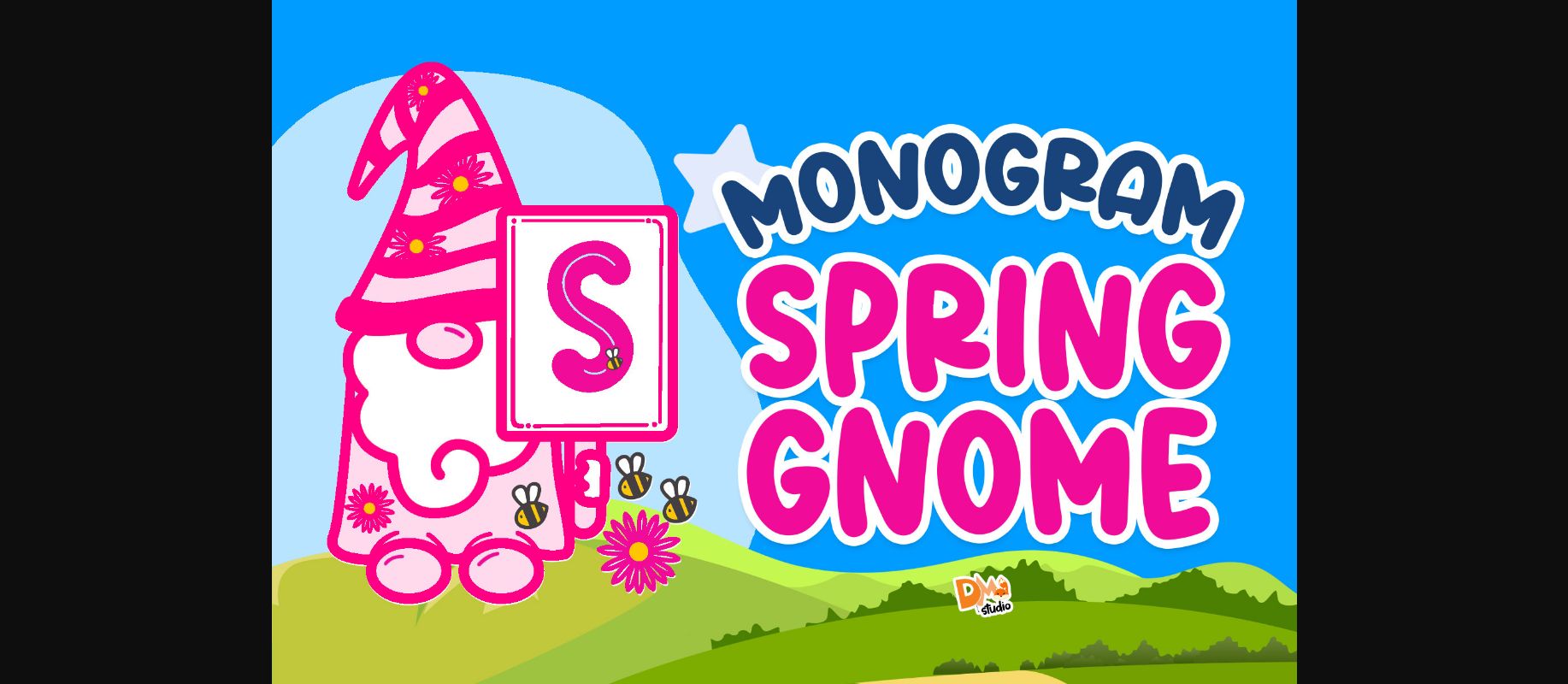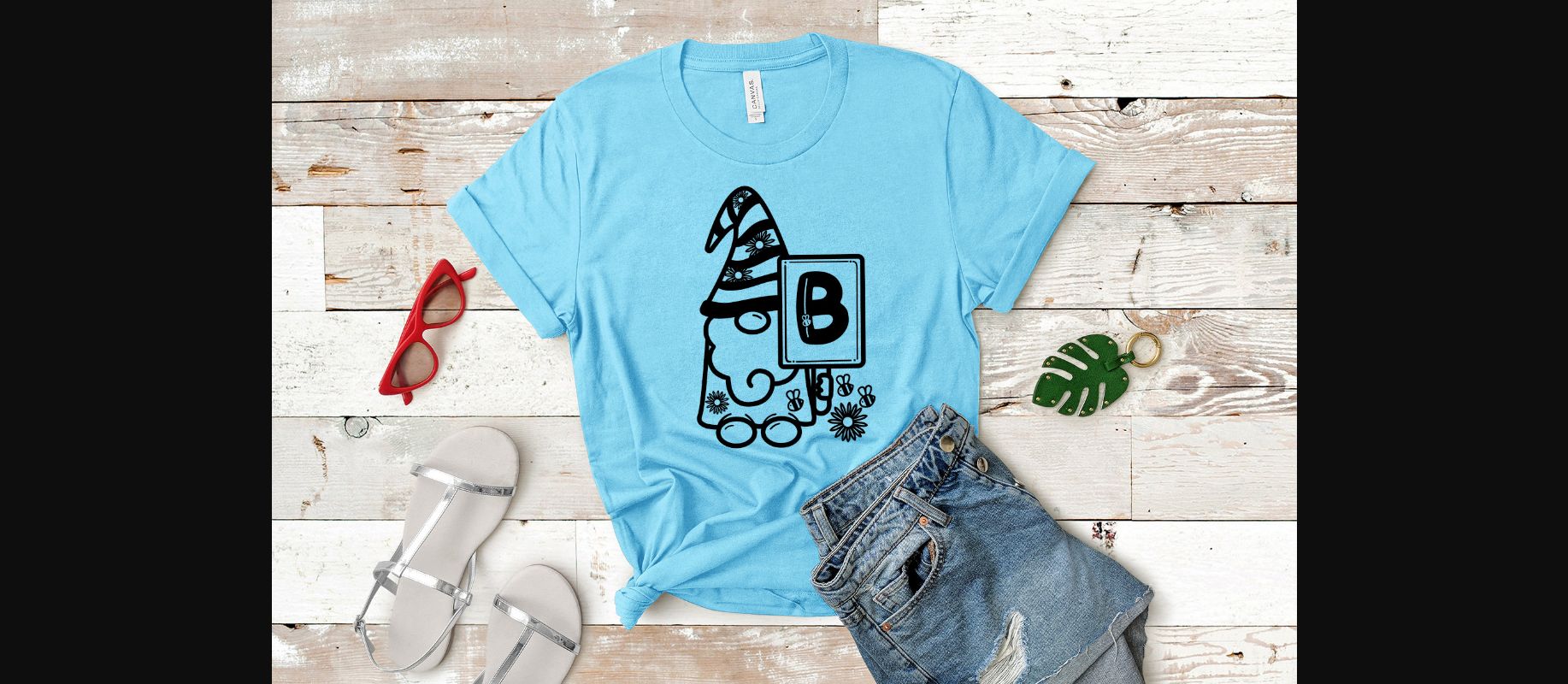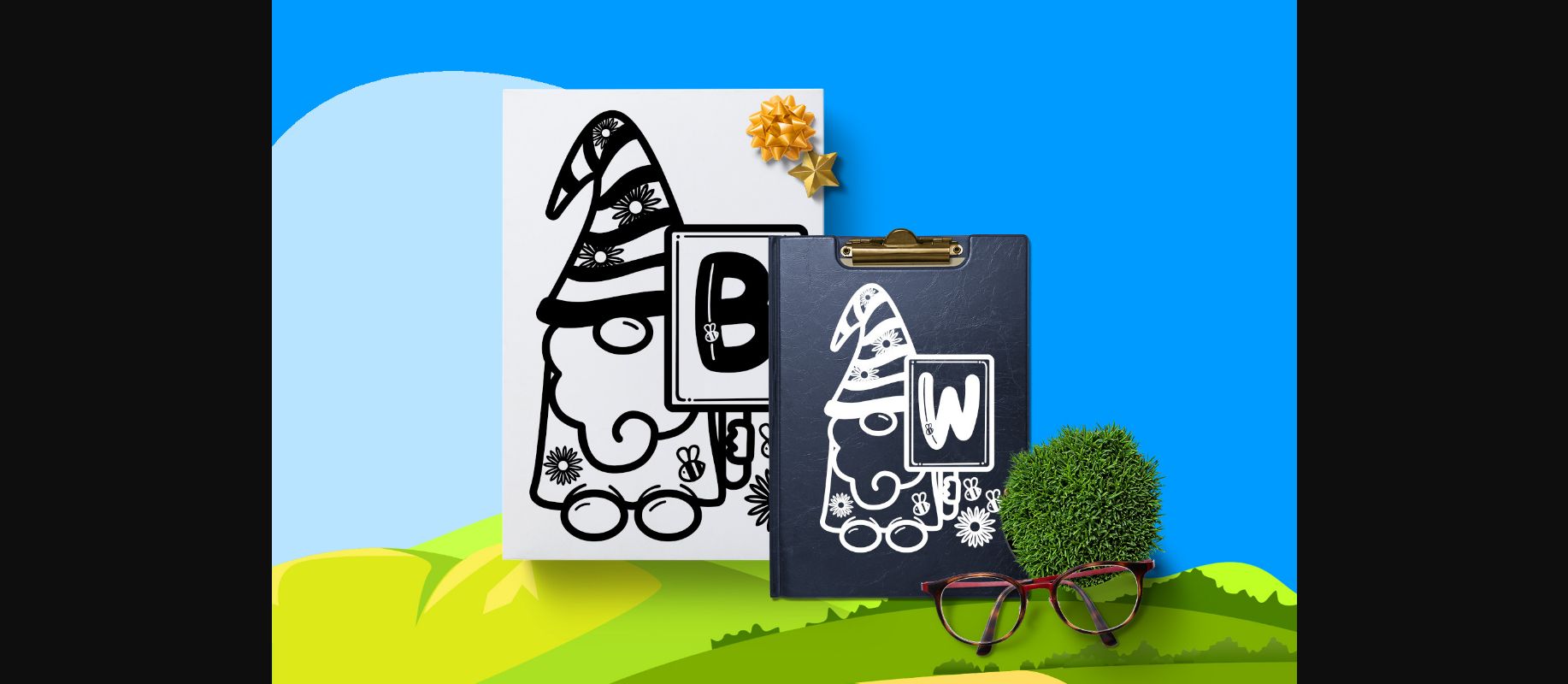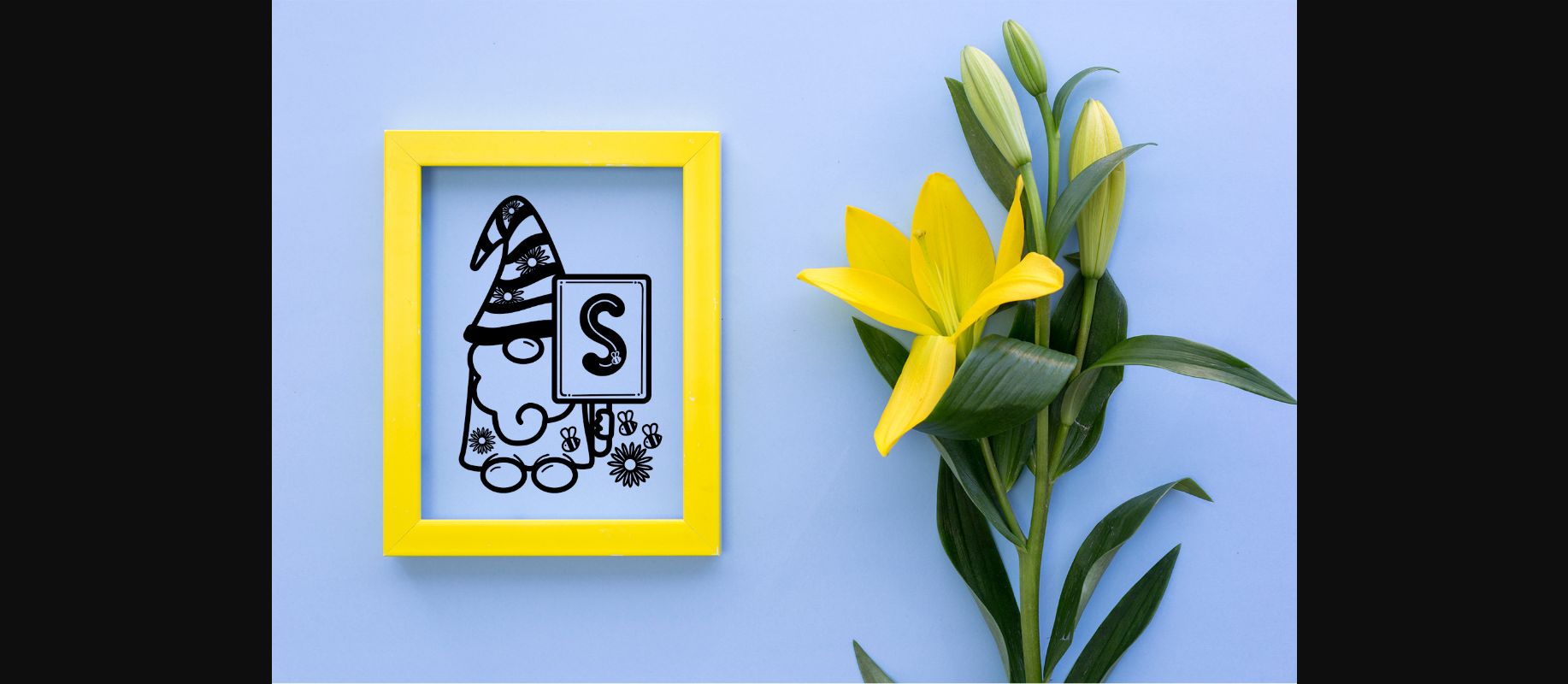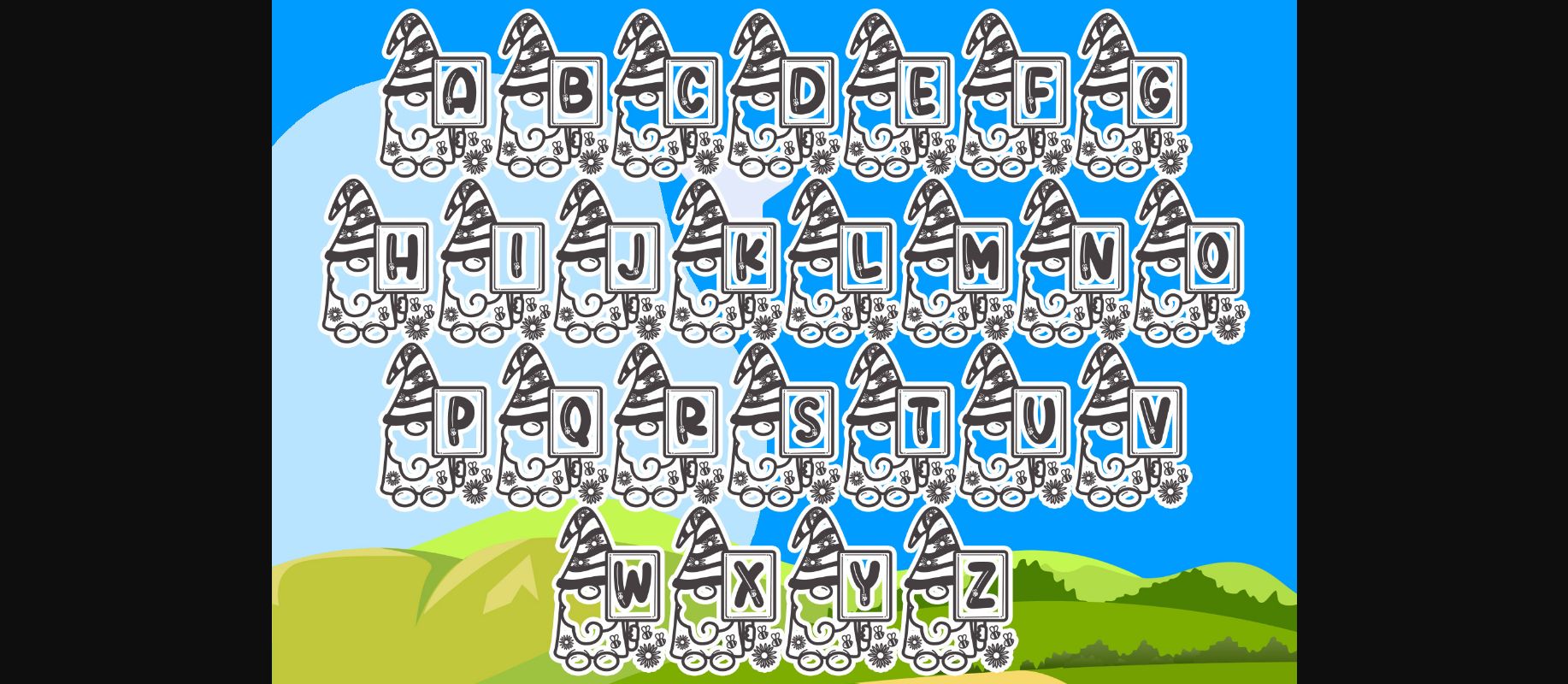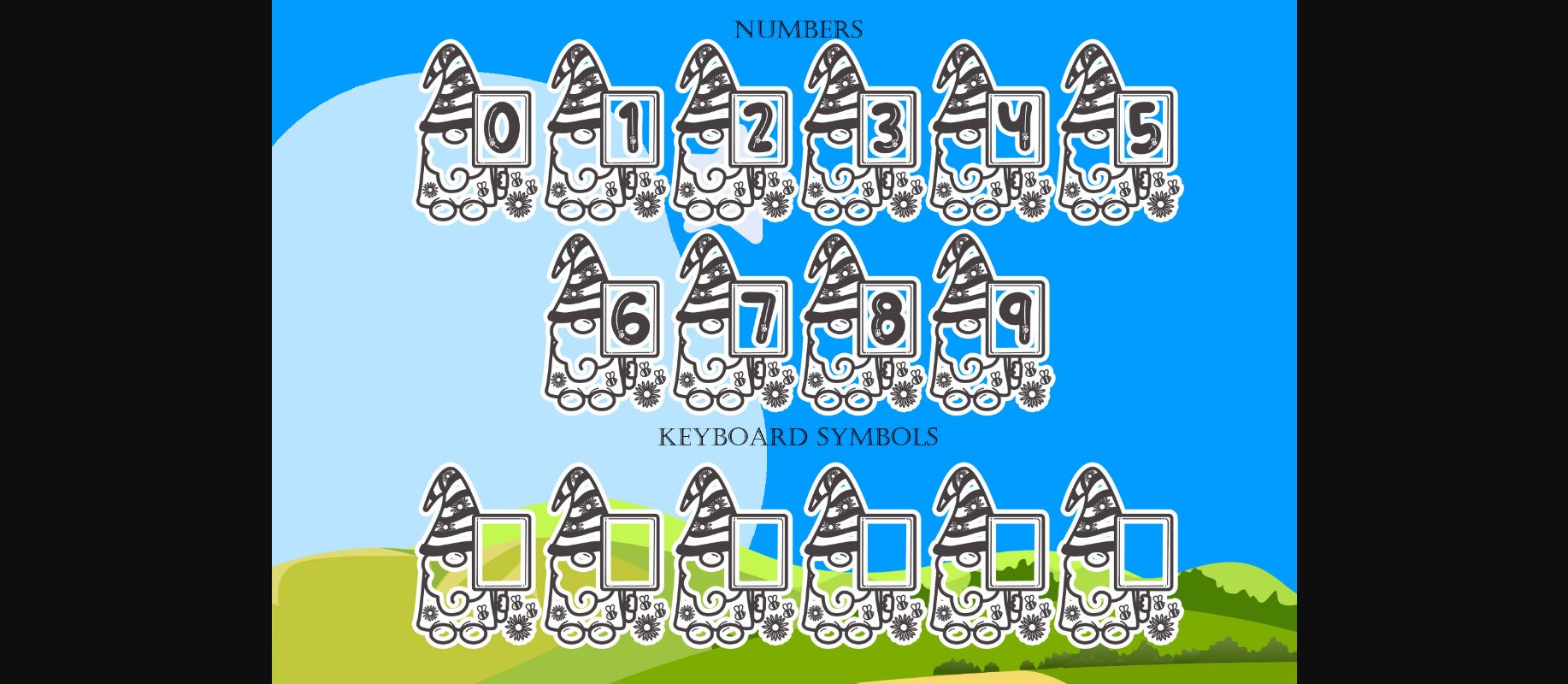
About Monogram Spring Gnome Font
Monogram Spring Gnome is a cute and whimsical decorative font. Whether you use it for cartoon related designs, children games or just any creation that requires a lovely touch, this font will be an amazing choice.